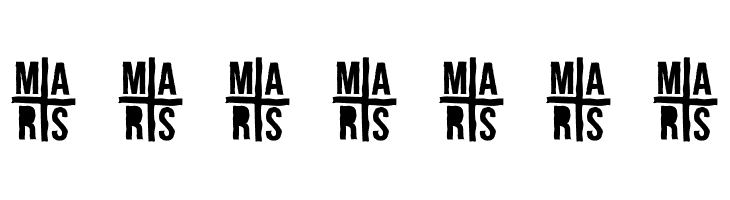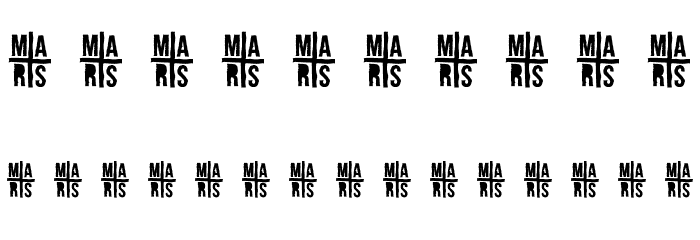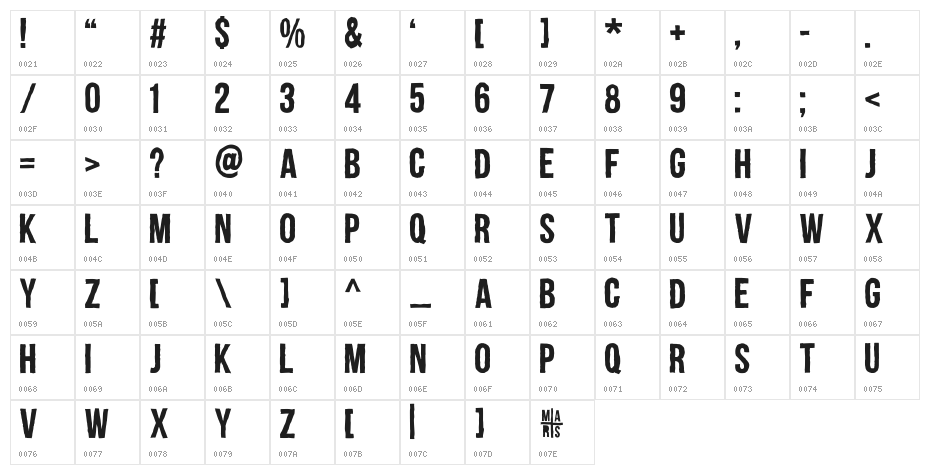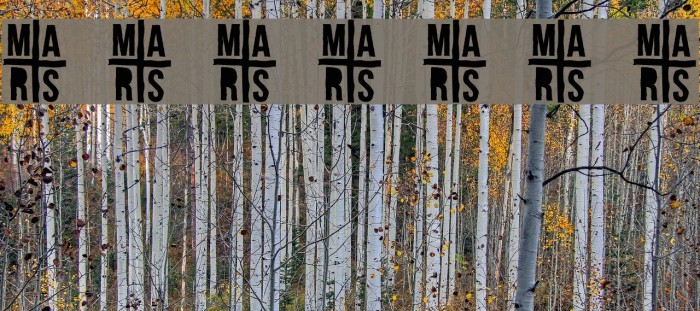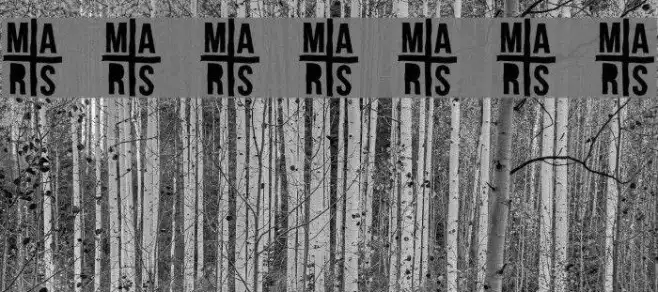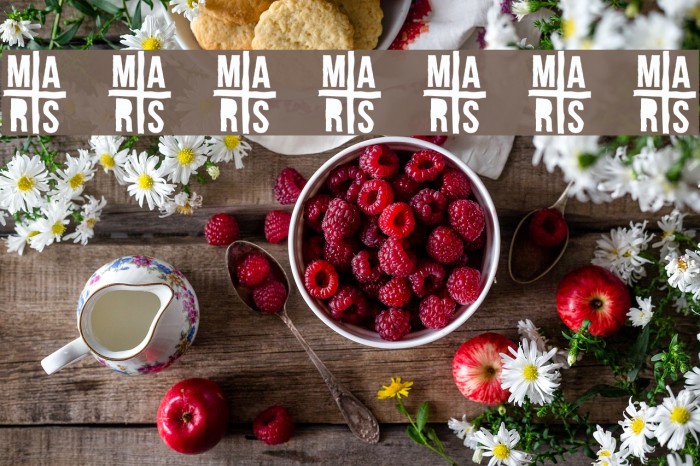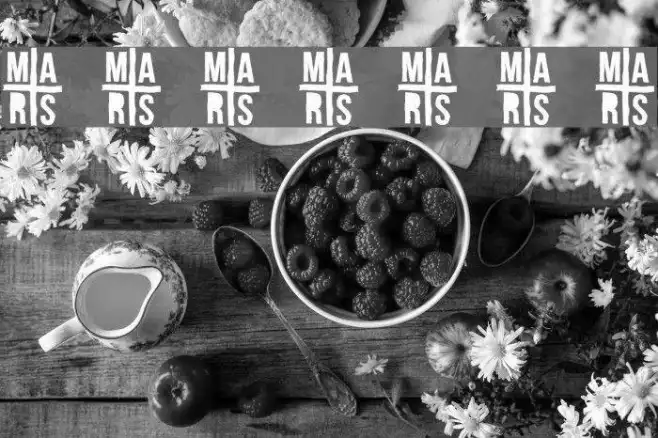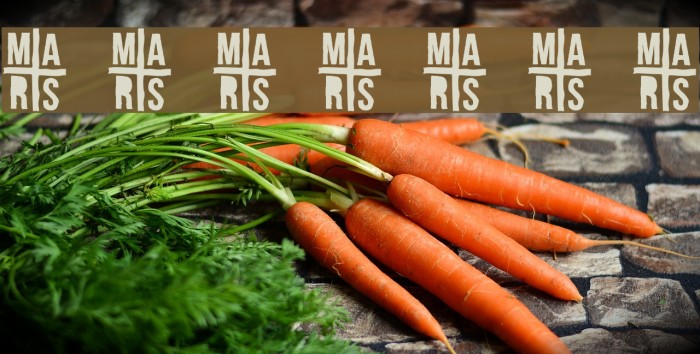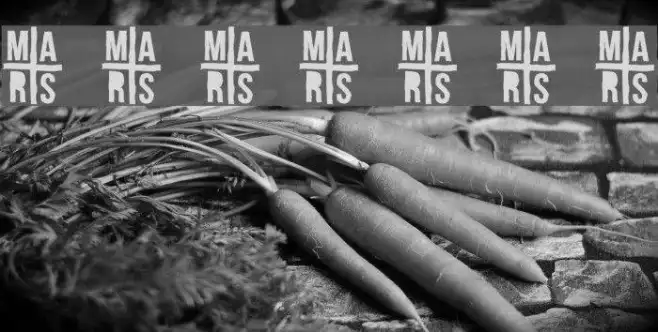
A-FOR-A Font
A-FOR-A Description
This font features a bold and impactful design with a strong presence. Each character is crafted with a unique stencil-like appearance, giving it a modern and industrial feel. The letters are uppercase, with a consistent height and width, creating a uniform look. The font's design includes sharp edges and clean lines, enhancing its readability and making it suitable for attention-grabbing headlines. The spacing between characters is tight, which contributes to its compact and cohesive style. This font is ideal for projects that require a bold statement or a contemporary aesthetic.